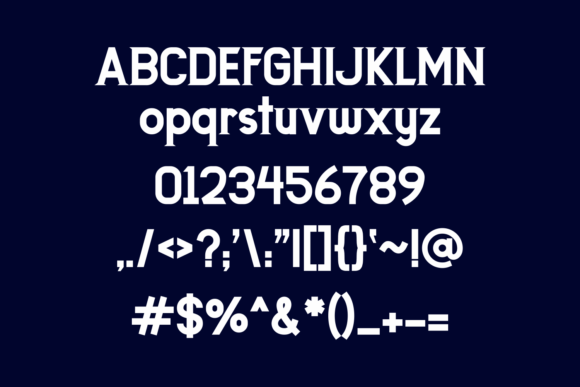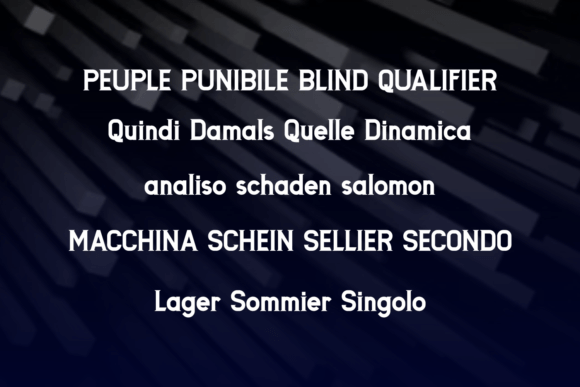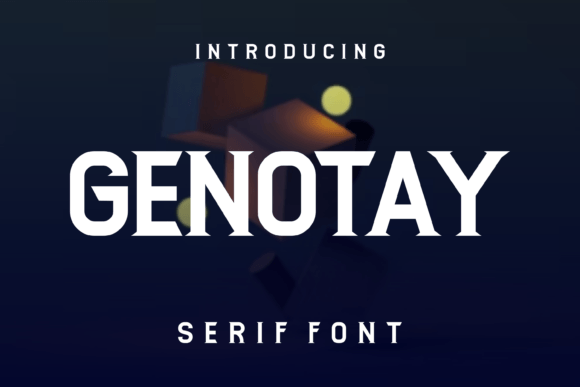
Discover the Unique Charm of Genotay Font: Elevate Your Designs with Elegance
In the vast universe of typography, where fonts are the cornerstone of design, finding that one typeface that stands out and speaks volumes about your brand or project can be a daunting task. However, for those on the lookout for something that combines elegance with uniqueness, the Genotay Font emerges as a beacon of excellence. This article aims to dive deep into the world of Genotay, exploring its characteristics, and uses, and why it should be a prized possession in your font library.
What is Genotay Font?
Genotay is a cool and unique serif font that has been meticulously crafted to bring a touch of sophistication and detail to any design project. Serif fonts, known for their classic and traditional appeal, are a staple in the world of typography, often used in books, newspapers, and magazines for their readability. Genotay, however, takes the conventional serif font to a new level with its neat craftsmanship and high level of detail.
The Distinctive Features of Genotay
So, what makes Genotay stand out from the myriad of serif fonts available? The answer lies in its unique blend of classic elegance and modern flair. Here are a few distinctive features:
• Neatly Crafted: Every letter in the Genotay Font is designed with precision, ensuring that each character is not only aesthetically pleasing but also highly legible.
• Highly Detailed: The attention to detail in Genotay is evident, making it perfect for projects where typography is a focal point.
• Versatility: Whether you’re working on a branding project, a website, a book, or any other design endeavor, Genotay can adapt, enhancing your creation with its unique charm.
Why Genotay Should Be in Your Font Library
Having a diverse library of fonts is crucial for designers and crafters. It allows for flexibility and ensures that you have the right typeface for any project. Here’s why Genotay deserves a spot in your collection:
• Enhances Any Creation: With Genotay, you can elevate your designs, adding a layer of sophistication that can make your project stand out.
• Wide Range of Applications: From editorial designs, advertising, to digital media, Genotay’s versatility means it can be used across various platforms.
• Time-Saver: Knowing that you have a font like Genotay at your disposal can save you time in searching for the perfect typeface, allowing you to focus on other creative aspects of your project.
How to Use Genotay Font Effectively
To truly leverage the potential of Genotay, consider the following tips:
• Pair it Wisely: When combining Genotay with other fonts, ensure they complement each other. A sans-serif font for headings and Genotay for body text can create a striking contrast.
• Play with Sizes: Experiment with different sizes to utilize Genotay’s detailed features fully. Larger sizes for headings can showcase its intricate design, while smaller sizes can maintain readability in body text.
• Color Matters: The color of your text can significantly impact the overall feel of your design. Stick to classic black and white for a timeless look or experiment with colors that align with your brand.
Genotay Font is more than just a typeface; it’s a design statement. Its unique blend of classic serif elegance and modern detail makes it a valuable asset for any designer or crafter looking to leave a mark. Whether you’re working on a digital project or a print design, Genotay has the potential to elevate your creation, making it more engaging and memorable. By incorporating Genotay into your font library, you’re not just adding a font; you’re unlocking a world of creative possibilities.